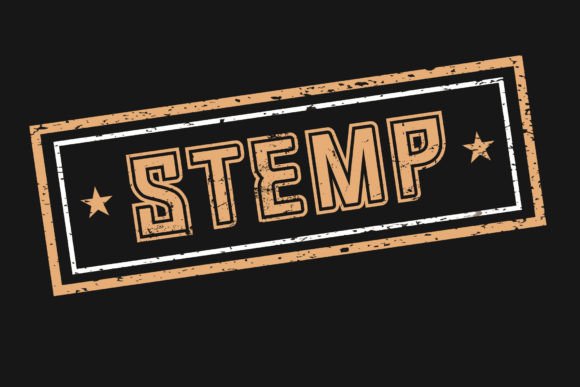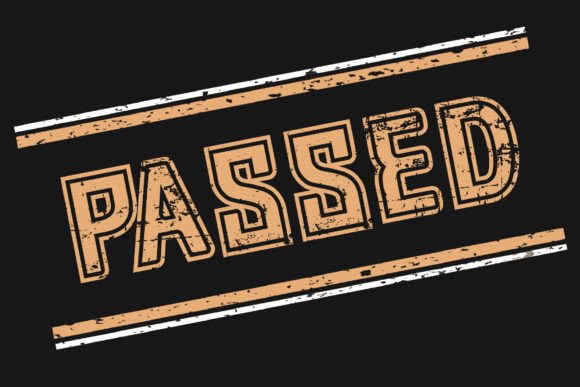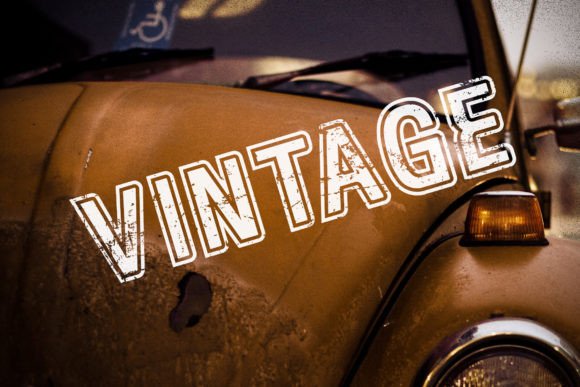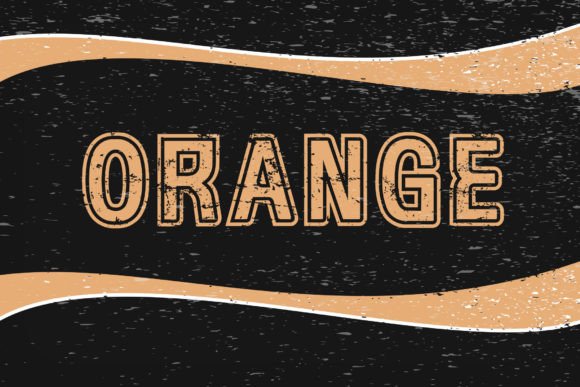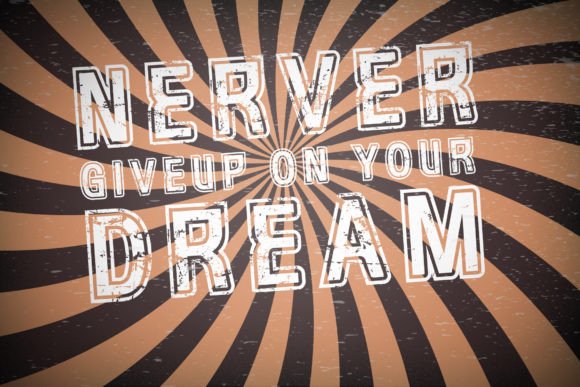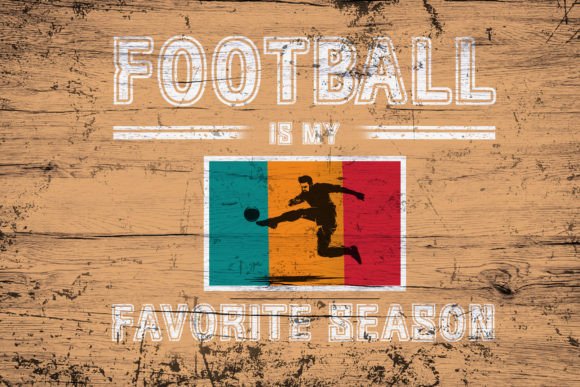
The Ultimate Design Game-Changer: Adventure Retro Font
Have you ever been in the middle of a design project, and suddenly, it all comes down to finding that perfect font? I recall a particularly frustrating experience when I was working on a vintage-themed poster. My client wanted a font that screamed ‘adventure’ and ‘retro,’ but I was stuck with a bland, generic sans-serif. That’s when I stumbled upon Adventure Retro Font, and my design woes disappeared instantly! ✨
What I Love About Adventure Retro Font
- ✅ Vintage Charm: This font exudes a nostalgic feel that’s perfect for projects that require a retro touch.
- ✅ Grunge-Distressed Look: The subtle distressing gives it a worn, authentic look that’s great for adding character to your designs.
- ✅ Versatility: Whether you’re working on a poster, a logo, or a t-shirt design, Adventure Retro Font fits right in.
- ✅ Easy to Read: Despite its vintage look, the font remains highly legible, even at smaller sizes.
While Adventure Retro Font is amazing, it’s not without its quirks. ⚠️ For instance, some of the special glyphs and stylistic alternates can be a bit tricky to access, especially if you’re new to using OpenType features. Also, the font might not be the best choice for body text due to its display nature.
Another thing to consider is that, due to its distressed nature, it might not be suitable for very formal or corporate projects. But for anything that needs a bit of personality and flair, Adventure Retro Font shines! 🤔
Adventure Retro Font was inspired by the classic travel posters of the 20th century. The designer aimed to capture the essence of adventure and exploration in a font that could be used across various design projects. By combining vintage charm with a grunge-distressed look, Adventure Retro Font was born – a perfect blend of nostalgia and ruggedness.
Q: What type of projects is Adventure Retro Font best suited for?
A: It’s perfect for any project that needs a vintage or retro touch, such as posters, logos, t-shirt designs, and more.
Q: Is Adventure Retro Font difficult to read?
A: No, despite its distressed look, Adventure Retro Font remains highly legible, making it suitable for both headlines and short paragraphs.